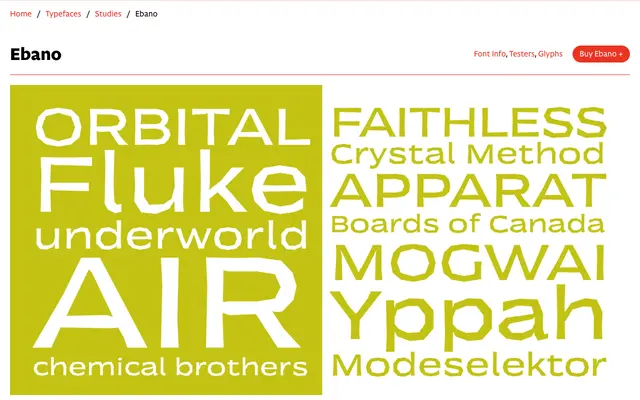
Ebano
CAST · Stefano Barel · 2022
Ebano specimen from CAST
An extended grotesque sans built from short straight segments to replicate the rough chisel-marks of hand-carved wood and lino type, drawing direct lineage from Koch's Neuland and Preissig's linocut lettering.
Designed by Stefano Barel during a course at CFP Bauer in Milan, Ebano uses polygonal approximations of curves rather than true arcs, so the 'O' reads more as a dodecagon than a circle at display sizes. The extended proportions recall sanserifs in the tradition of Frutiger's Univers, while the deliberate imperfections, slight tapering on straight strokes and irregular outlines, reproduce the physical action of a woodcutter's chisel. A single Regular weight makes it a focused display choice for titles, posters and logotypes rather than a workhorse text family.
An extended grotesque sans whose letterforms are built from short straight segments mimicking woodcut and linocut carving, placing it firmly in the display category despite a grotesque structural foundation with two-storey 'a' and 'g'.